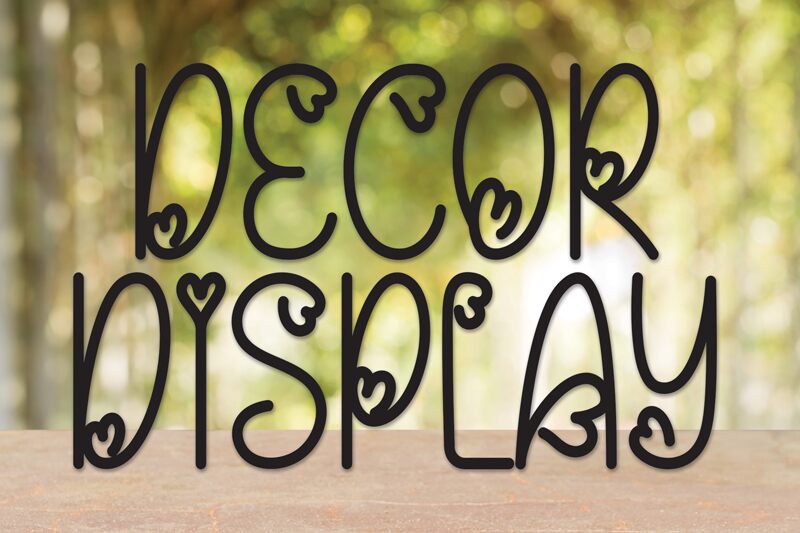
Decor Display
Decor Display font by Andi Moz is a Valentine-style condensed script with a whimsical, decorative appearance. It features heart motifs and other enchanting design elements, making this font incredibly charming. Ideal for creating graphics targeted toward children or projects meant to decorate festive events, it delivers a punch in each letterform that the audience is bound to appreciate.